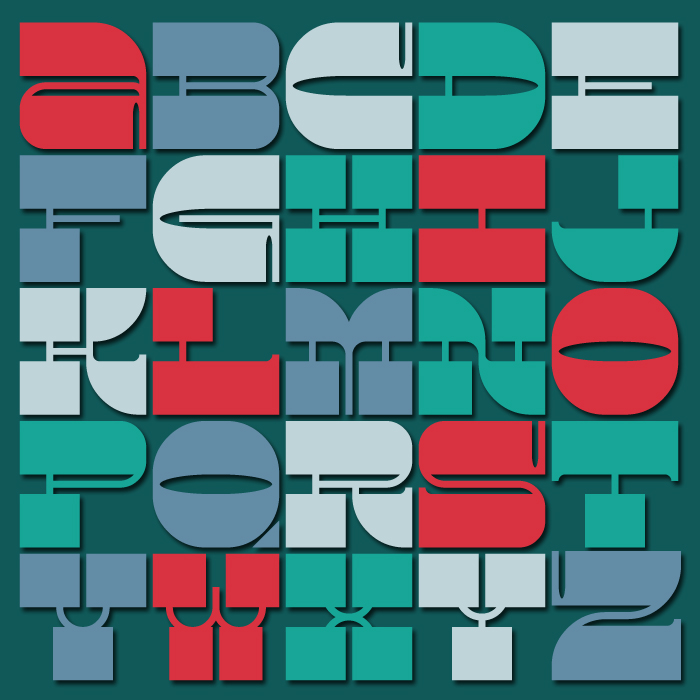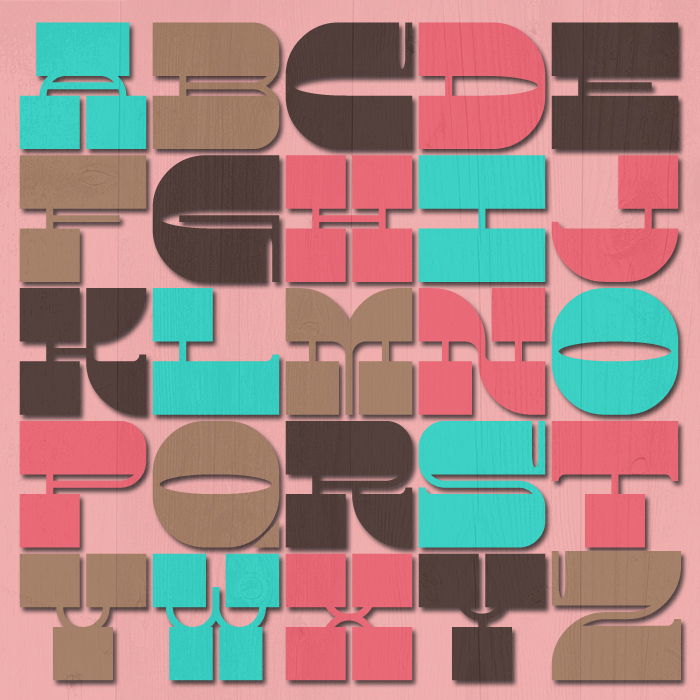
Beautiful font and a great relation to the theme.
you forgot U in the sample.
Reverse-contrast is a recurring theme in your portfolio: Transfer Window, Hold Your Horses, Atomised, Blueback, Dustcloud, one horse town, Madagascar, etc. Reverse Psychology is a fine example of this popular trend of making thick what's normally thin and vice versa. Furthermore, in order to maximise the visual impact, the difference between the thick and thin parts is taken to the extreme. Nice job. Are you going to add punctuation, diacritics, and special characters? An alt. A would be nice too. 10/10
Love the stubbiness of the glyphs, a comical take on the old western types. 10/10 to you!
Superb entry. I like each of its curves. This font is calling me as if I were the honorable author, but I know that's just a summer dream. Congrats. 10 2U & fav, compañero!
absolutely gorgeous, well balanced, love it
Remind me a bit of the "pica italian" woodtype
Love it! I especially love the R!